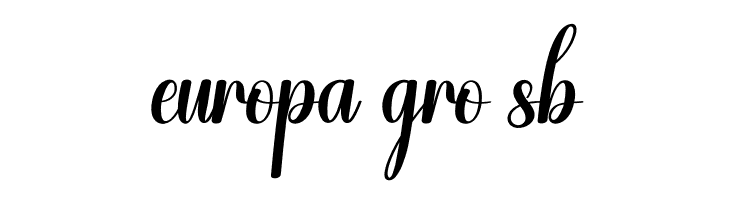
Abstract geometric font with intersecting lines and squares.
Elegant, high-contrast decorative script with flowing strokes.
A modern, elegant font with high contrast and sleek, elongated strokes.
A bold, playful font with a hand-drawn, informal style.
A modern, high-contrast serif font with elegant, elongated characters.
An elegant, flowing cursive script with artistic strokes.
A lively, cursive font with elegant connections and a dynamic flow.
A playful and elegant handwritten font with fluid strokes.
A bold slab serif font with strong, block-like serifs and a balanced structure.
A bold, cursive font with a dynamic and elegant style.
A bold, angular font with a Gothic-inspired, modern design.
A playful, handwritten script font with bold, rounded characters.
A bold serif font with a classic and authoritative style.
A bold, dynamic script font with flowing, cursive strokes.
A bold, brush-style font with dynamic and expressive strokes.
A bold, graffiti-inspired font with a hand-drawn, distressed look.
A playful, casual handwritten font with tall, narrow letters and a slight slant.
A bold, Gothic-inspired font with sharp, angular lines and pointed serifs.
A bold, modern font with sharp angles and playful lowercase letters.
A bold, italicized sans-serif font with a modern and impactful style.
A modern, geometric sans-serif typeface with balanced proportions and minimal contrast.
A sleek, modern italic font with clean lines and balanced proportions.
A bold, modern sans-serif font with clean lines and balanced proportions.
A modern, italicized sans-serif font with smooth, consistent strokes.
A sleek, modern sans-serif font with a light, italic style.
A modern, bold, italic sans-serif font with clean lines and excellent readability.
A modern, light sans-serif font with clean lines and excellent readability.
A clean, modern sans-serif font with balanced spacing and uniform stroke width.
A classic serif typeface with elegant and refined letterforms.
A graceful and elegant script font with flowing curves and decorative flourishes.
A fluid, elegant handwritten script with a modern touch.